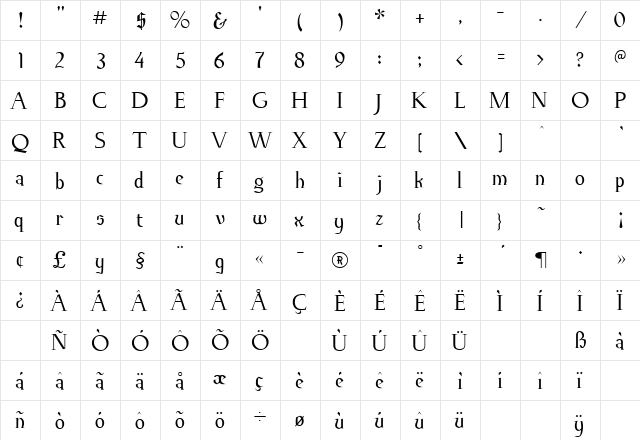
Knaudens Regular
Design Context for Knaudens Typeface
Knaudens offers clean, dependable letterforms without strong stylistic allegiance, making it a practical choice for designers who need flexibility.
Pro Tip: Use Knaudens in both headline and body roles to test its range before committing to a single application.